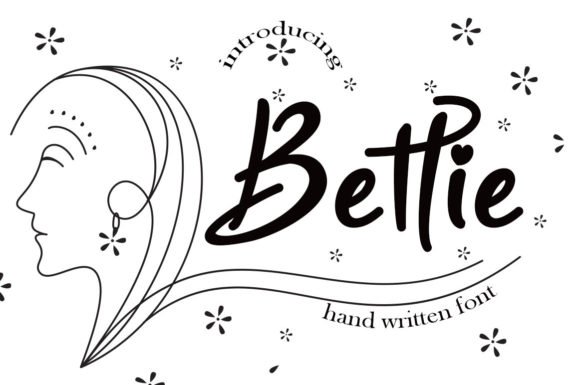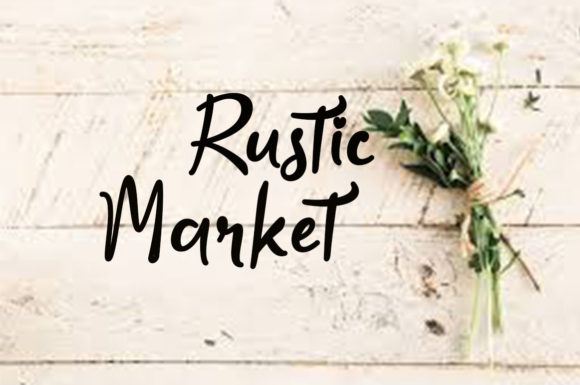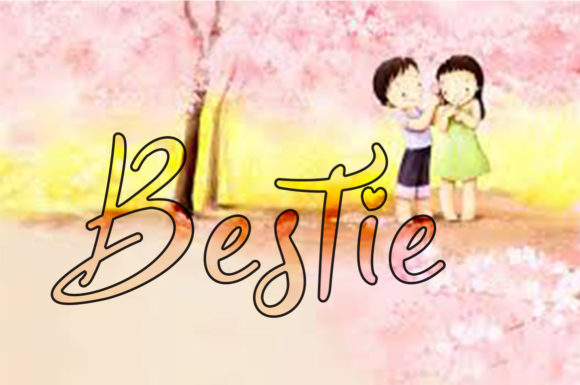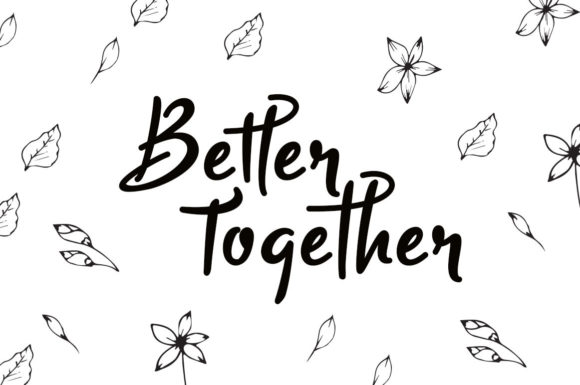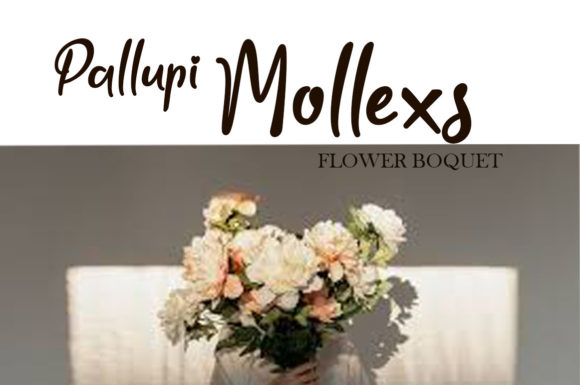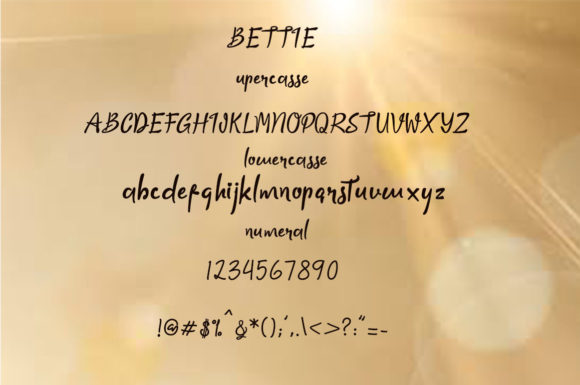
Brighten Up Your Design with a Touch of Whimsy
Have you ever stared at a blank page, desperate for the perfect font to bring your creative vision to life? That’s exactly what happened to me when I stumbled upon the enchanting
As a versatile and playful handwritten font,
Bettie Font Key Features
- Font Style: Script, Display Font
- Unique Characteristics: Hand-drawn, elegant, and sophisticated design, ideal for titles, headings, and short text passages
Bettie Font Review
First off, I’d like to say that Bettie Font is a pretty great addition to any design project. The ✨ bold lines and curves give it a strong, feminine feel that’s perfect for titles and headings. The font is also quite versatile, working well in both digital and print formats.
The best part about Bettie Font is its ability to add a touch of elegance to any design. Whether you’re working on a fashion brand, a wedding invitation, or even a book cover, Bettie Font is sure to make your design stand out.
However, there are a few limitations to consider. ⚠️ The font can feel a bit over-the-top in smaller text sizes, so be sure to use it sparingly. Additionally, the font’s lines can sometimes feel a bit too thick, which may not be ideal for designs that require a lot of fine detail.
Overall, I’d give Bettie Font 4 out of 5 stars. It’s a great choice for designers looking to add a touch of sophistication to their projects, but may not be the best fit for every design.
- Works well in titles and headings
- Great for digital and print formats
- Adds a touch of elegance to designs
- Not ideal for smaller text sizes
- Lines can feel too thick in some designs
Bettie Font Practical Application Guide
Tips for Getting the Most Out of Bettie Font
For best results, use Bettie Font in bold or italic styles to add emphasis. You can also pair it with other fonts to create a unique and eye-catching design.
Bettie Font is perfect for creating vintage-inspired designs, such as:
- Social media graphics for fashion or lifestyle brands.
- Posters for music festivals or events.
- Flyers for local businesses or promotions.
Alternatives to Bettie Font
Great Vibes is a modern script font that is perfect for creating a fun, playful, and creative atmosphere. It is ideal for use in advertising, social media, and other promotional materials where a friendly and approachable tone is desired.
Compared to Bettie Font, Great Vibes has a more modern and energetic feel, making it suitable for a wider range of applications. While Bettie Font has a more vintage and feminine vibe, Great Vibes is more versatile and can be used in a variety of contexts.
Ostrich Sans is a sans-serif font that is great for use in digital media, such as websites, apps, and social media platforms. It is clean, modern, and highly legible, making it perfect for body text and headings.
Compared to Bettie Font, Ostrich Sans has a more minimalist and utilitarian feel, which makes it better suited for digital applications where clarity and simplicity are key. While Bettie Font has a more decorative and ornate quality, Ostrich Sans is more straightforward and easy to read.
Carolyna Pro is a modern script font that is perfect for creating a sophisticated and elegant atmosphere. It is ideal for use in high-end branding, advertising, and editorial design where a refined and polished tone is desired.
Compared to Bettie Font, Carolyna Pro has a more refined and polished feel, making it suitable for more formal and professional applications. While Bettie Font has a more playful and whimsical vibe, Carolyna Pro is more refined and sophisticated.
Alex Brush is a modern brush script font that is perfect for creating a
Projects Featuring the Bettie Font
Retro-Style Travel Poster
Create a vintage-inspired travel poster featuring the Bettie Font. This font is reminiscent of the 1950s, making it perfect for a retro-themed project.
How to use Bettie Font: Use the font for the title of the travel destination, such as “Paris” or “New York.” You can pair it with a bold font for the subtitle, like “City of Love” or “The City That Never Sleeps.”
Q: Can I customize the Bettie font to fit my specific design needs?
Yes, the Bettie font family includes a range of OpenType features, including ligatures, swashes, and stylistic sets. These features can be accessed using font software that supports OpenType, allowing designers to customize the font to fit their specific design needs.